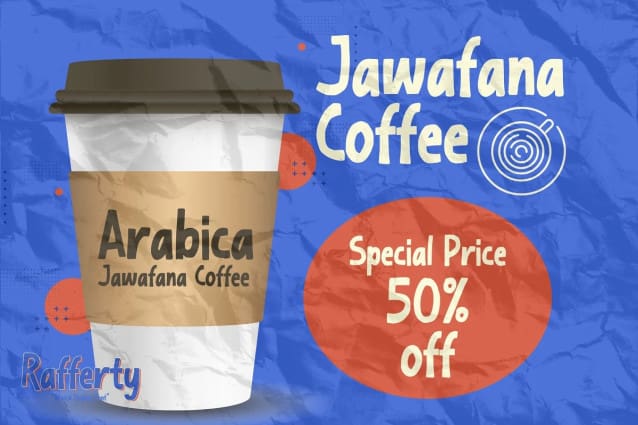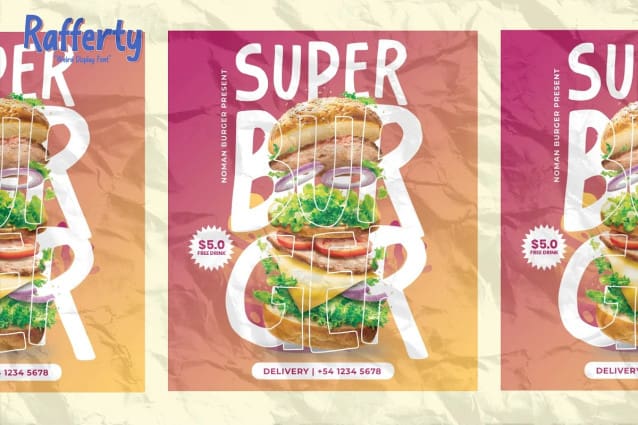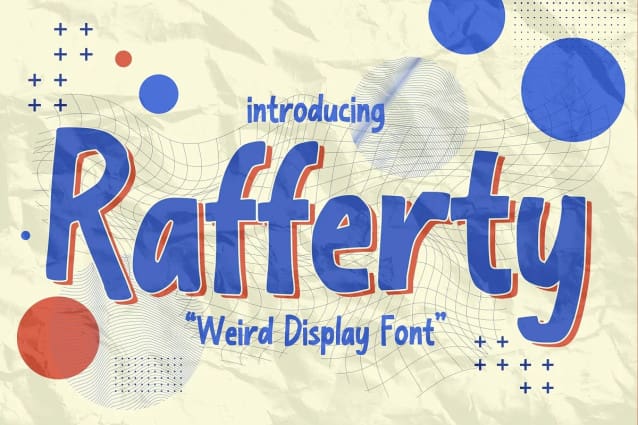
Rafferty Display Font
Rafferty Display Font – It’s Weird Display Font is a Natural Style and Authentic classy style, this font is great for your creative projects such as watermark on photography, and perfect for logos & branding, invitation,advertisements,product designs, stationery, wedding designs,label ,product packaging, special events or anything that need handwritting taste.
Rafferty a natural Hand Drawn feel. This handmade font will make your design has a beautiful natural touch for each details. It is perfect for any design project as Invitation,logo, book cover, craft or any design purposes,photos, photography overlays, signs, window art, scrapbooking, tags and so much more! It is perfect for any design project as Invitation,logo, book cover, craft or any design purposes. This font is PUA encoded which means you can access all of Alternates glyphs.